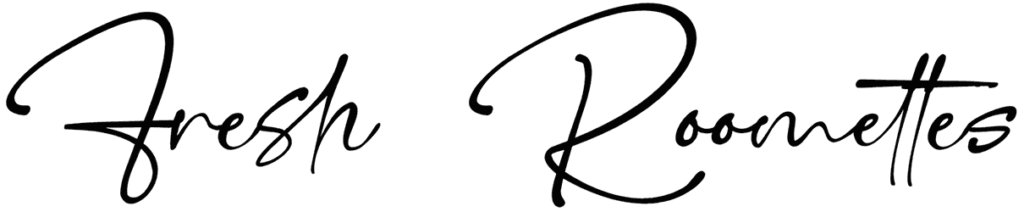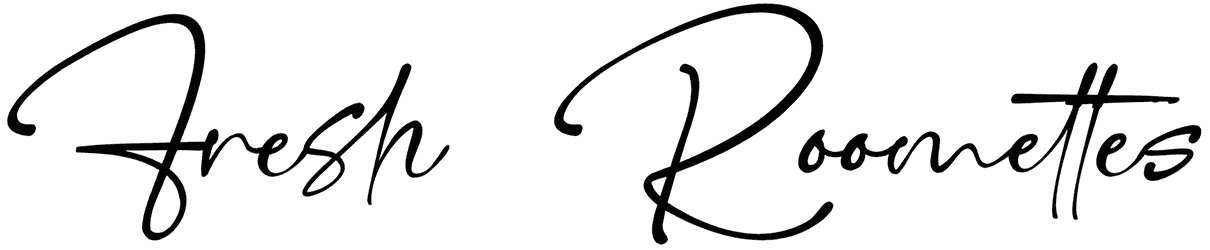
Fresh Roomettes Font
Say hello to Fresh Roomettes, our popular autograph font, sharing a gorgeous view that can dazzle everyone in a second. The elegant swashes and tender lines depict a stunning organic touch written by the fountain pen.
Unfortunately, it doesn’t support numbers and might be a little unreadable, but the good news is you can use this fashionable font in a variety of designs, such as posters, special events, signatures, wedding invitation cards, and branding.
Fresh Roomettes is an elegant signature font. Every swash, stroke, and curve was created to entice
happiness and elegance. Great choice for your logo, book cover, poster, t-shirt, branding, and
advertisement needs.